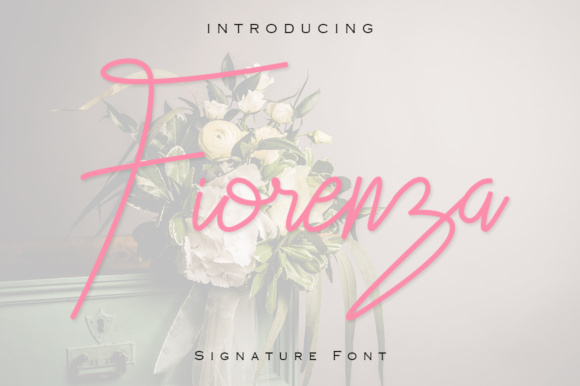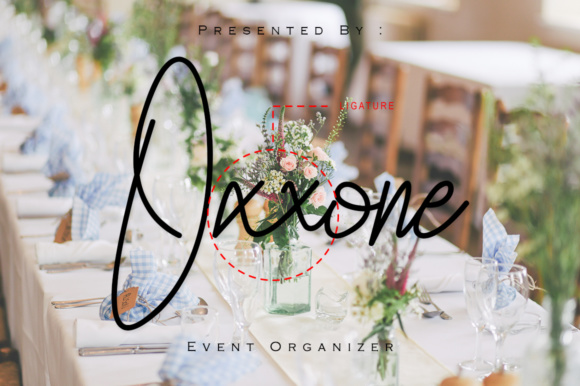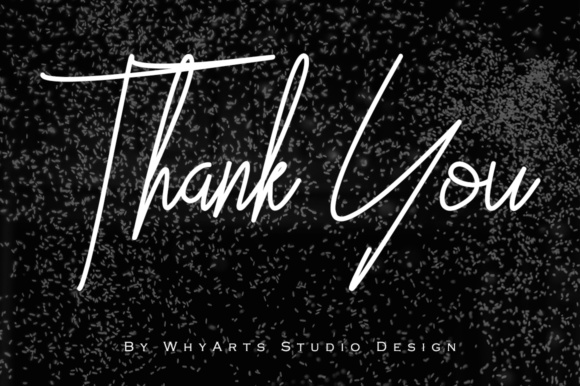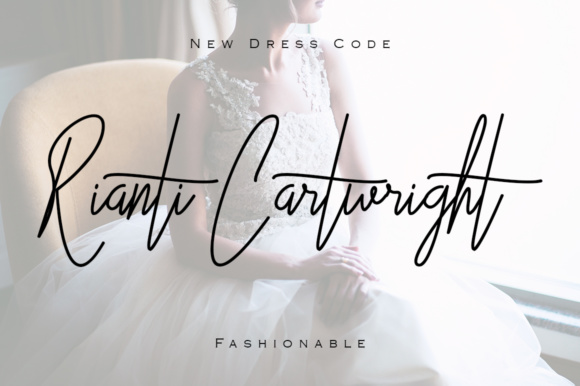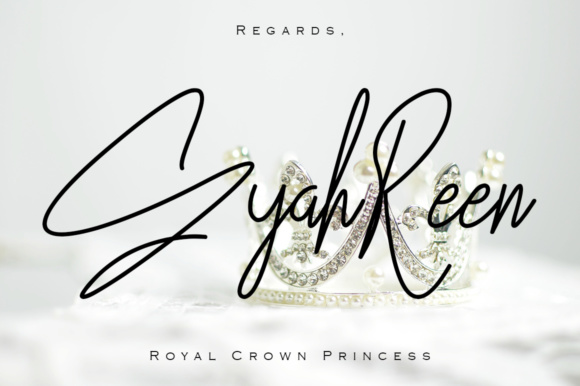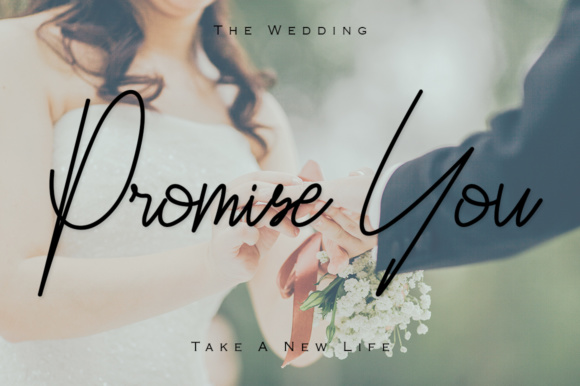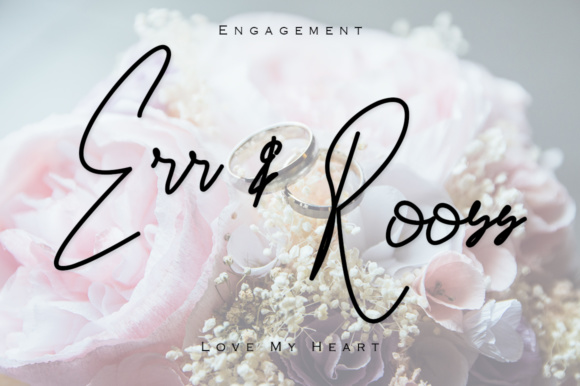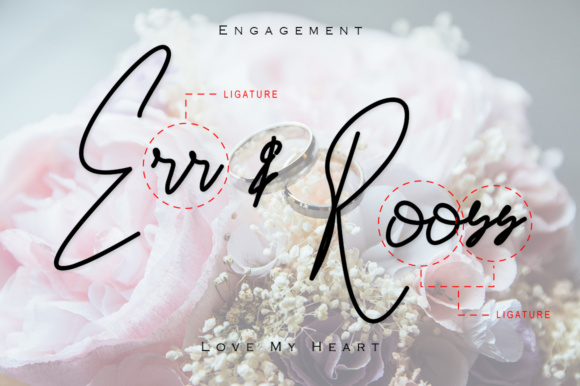
Fiorenza Font
The Fiorenza is a modern signature font. It’s free-flowing, fashionable and feminine.
Give your design an interesting touch with this signature font!